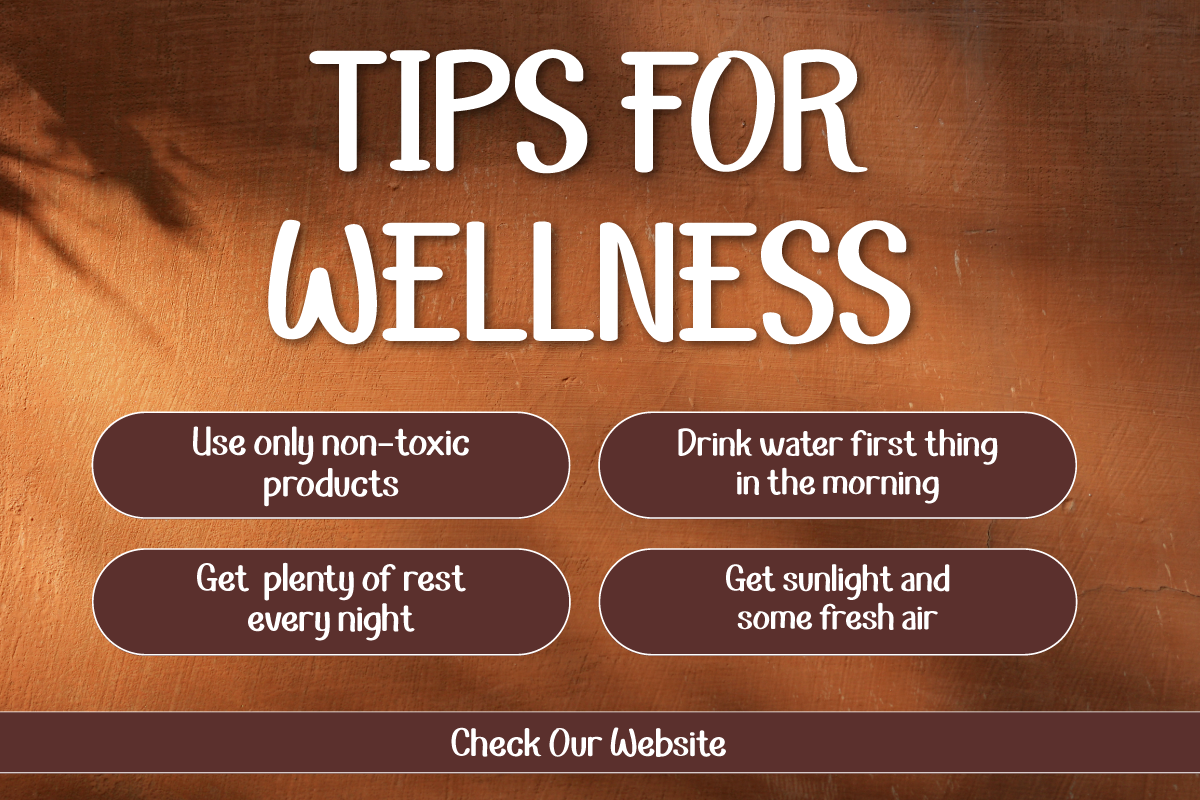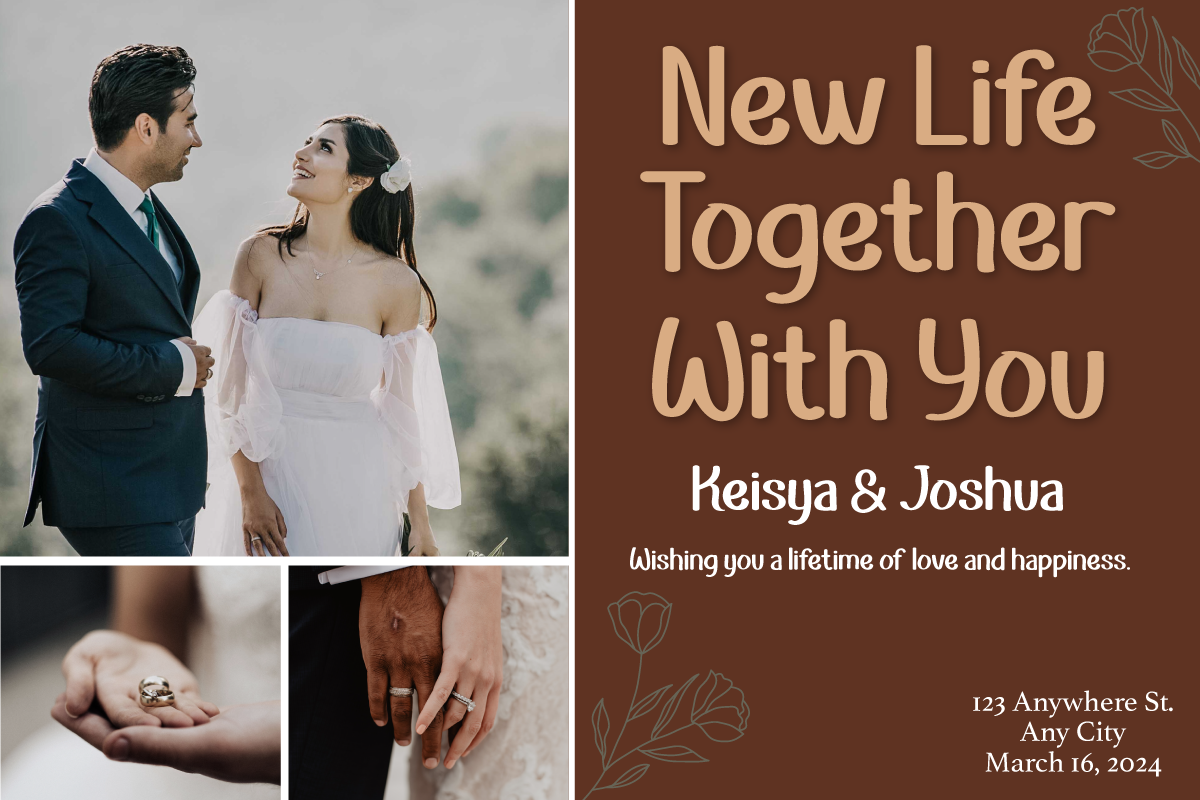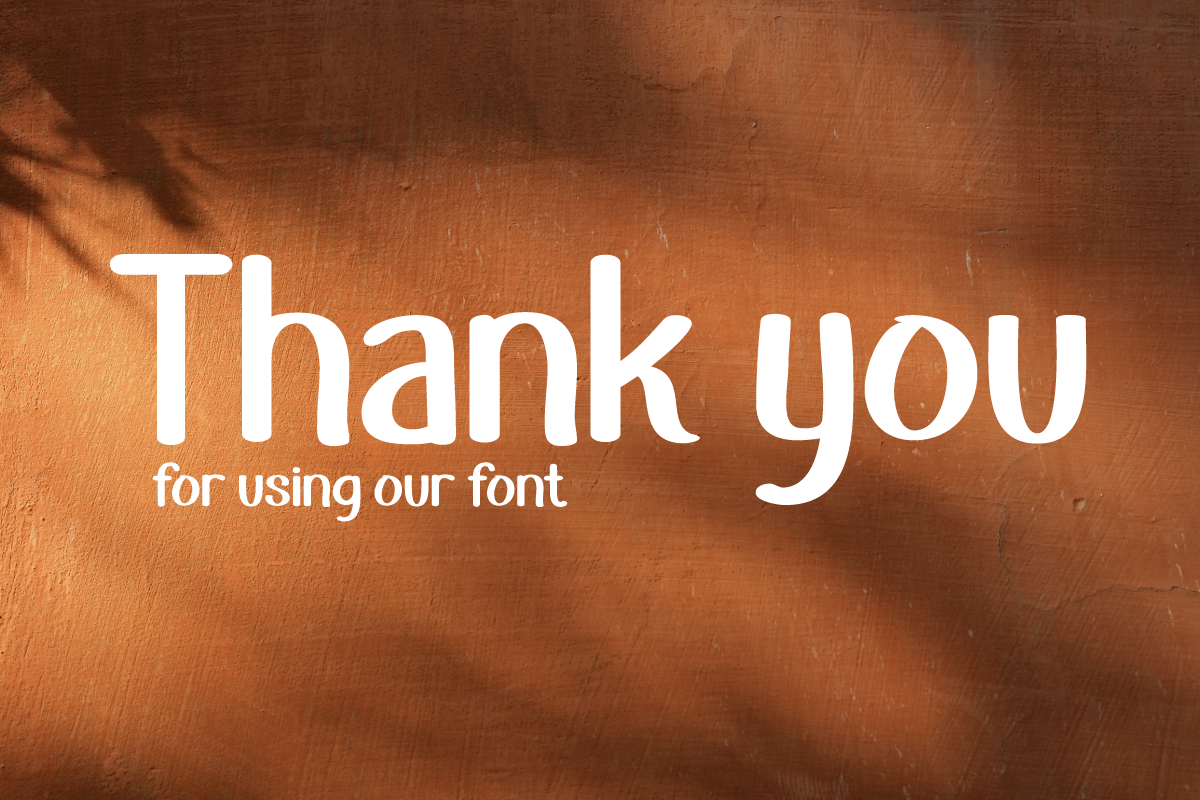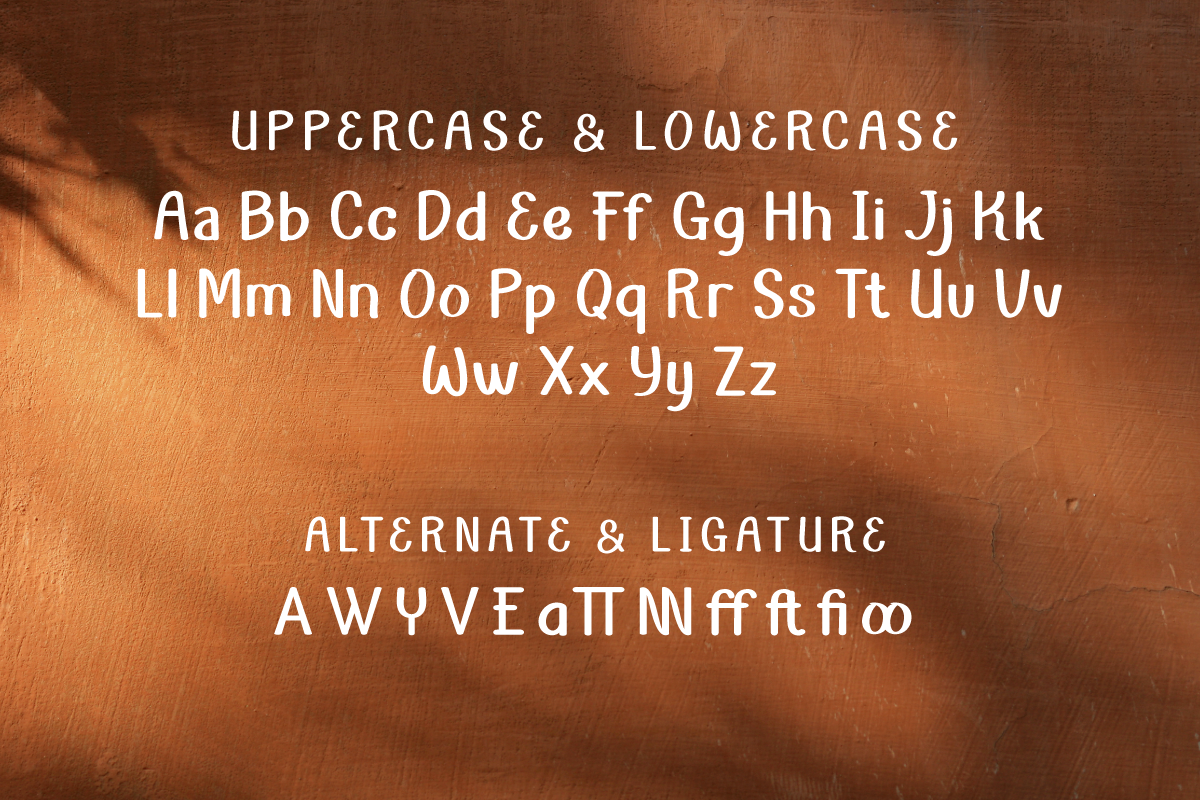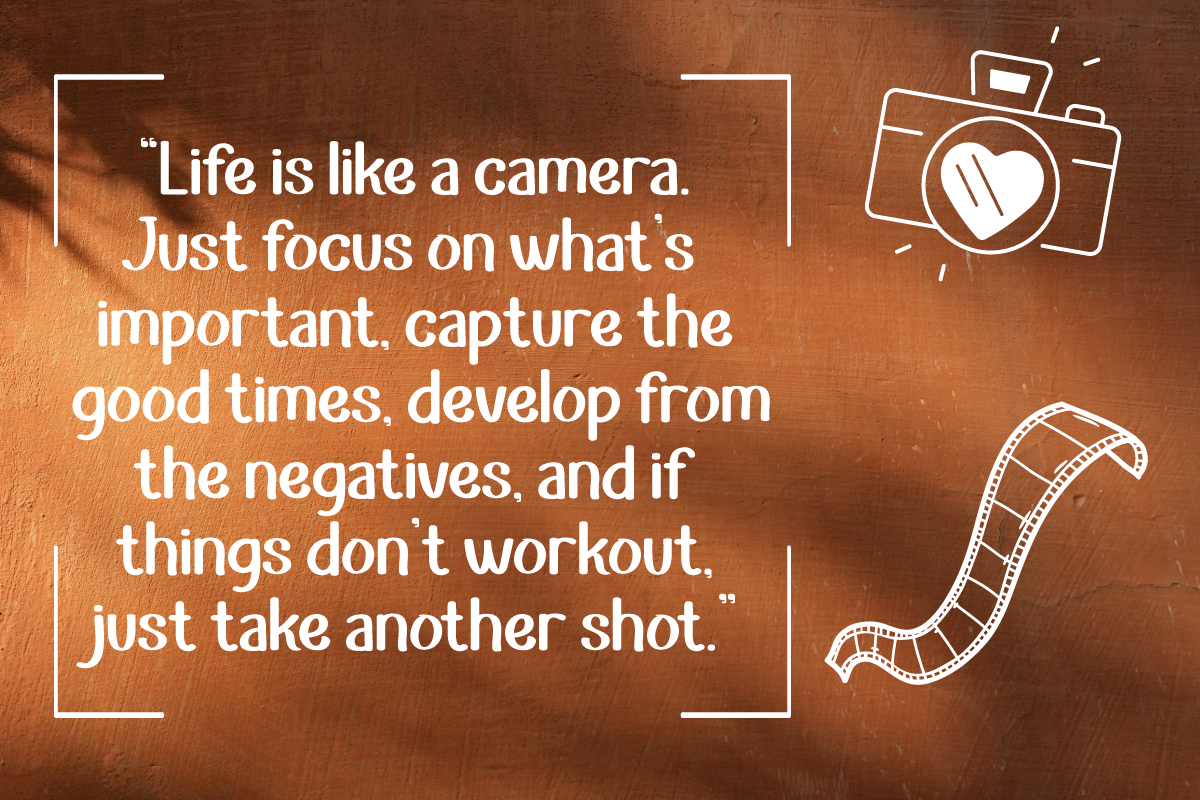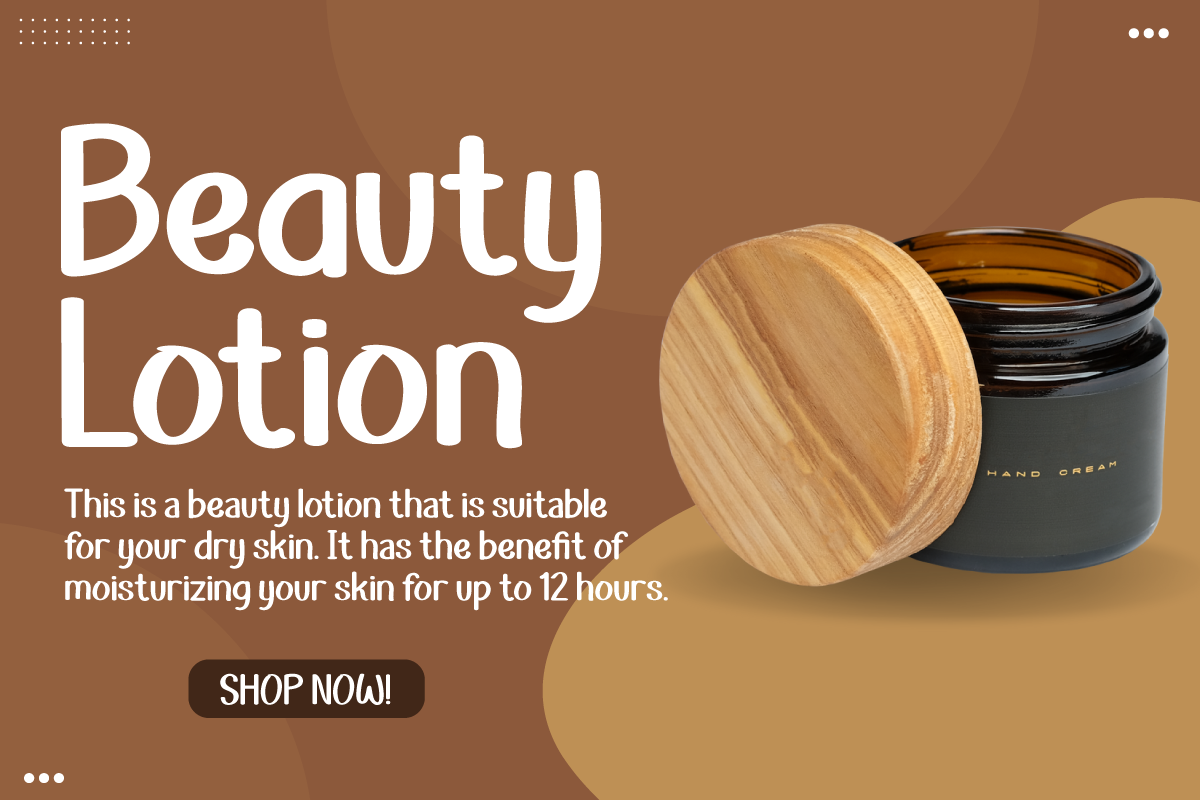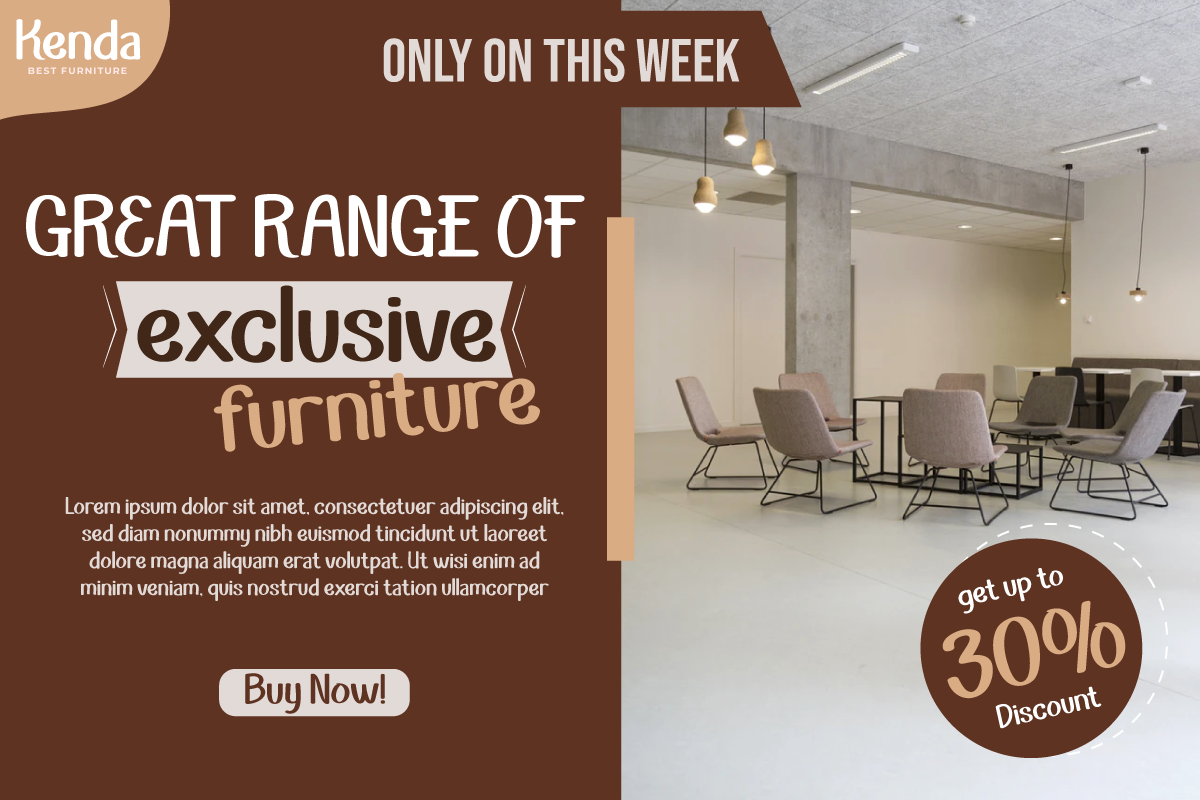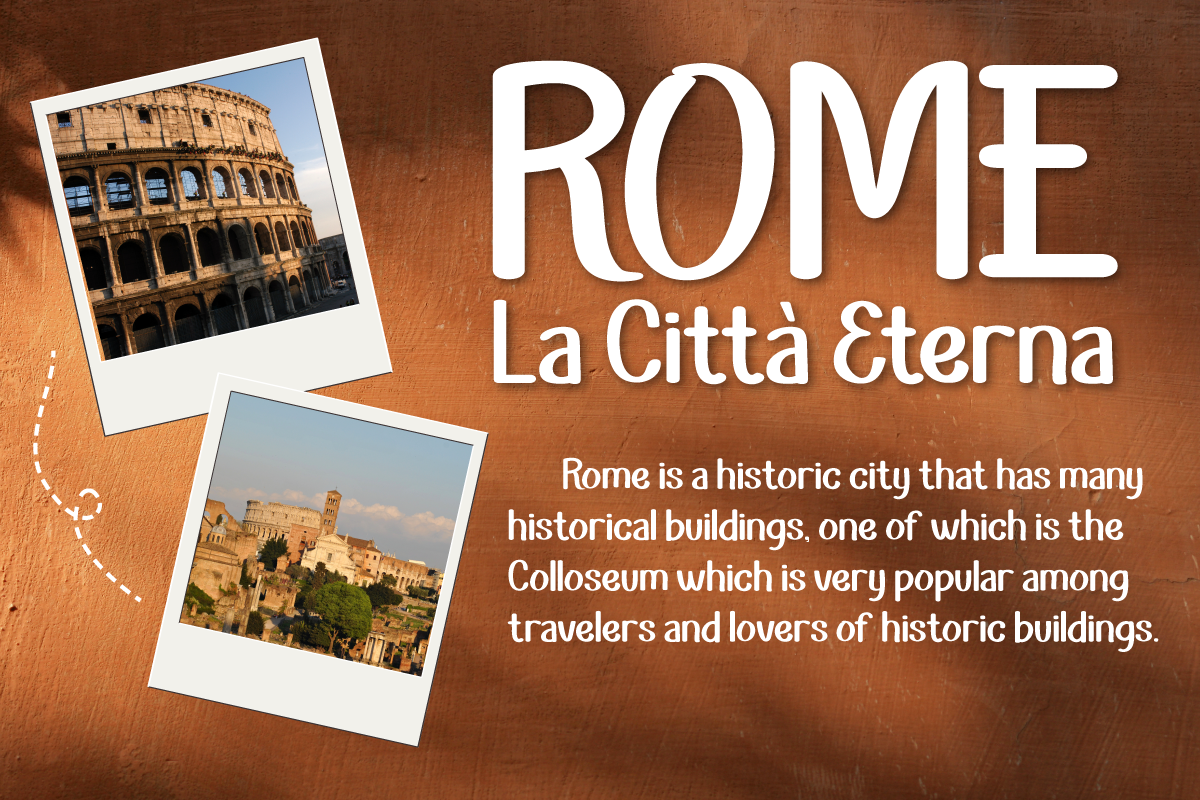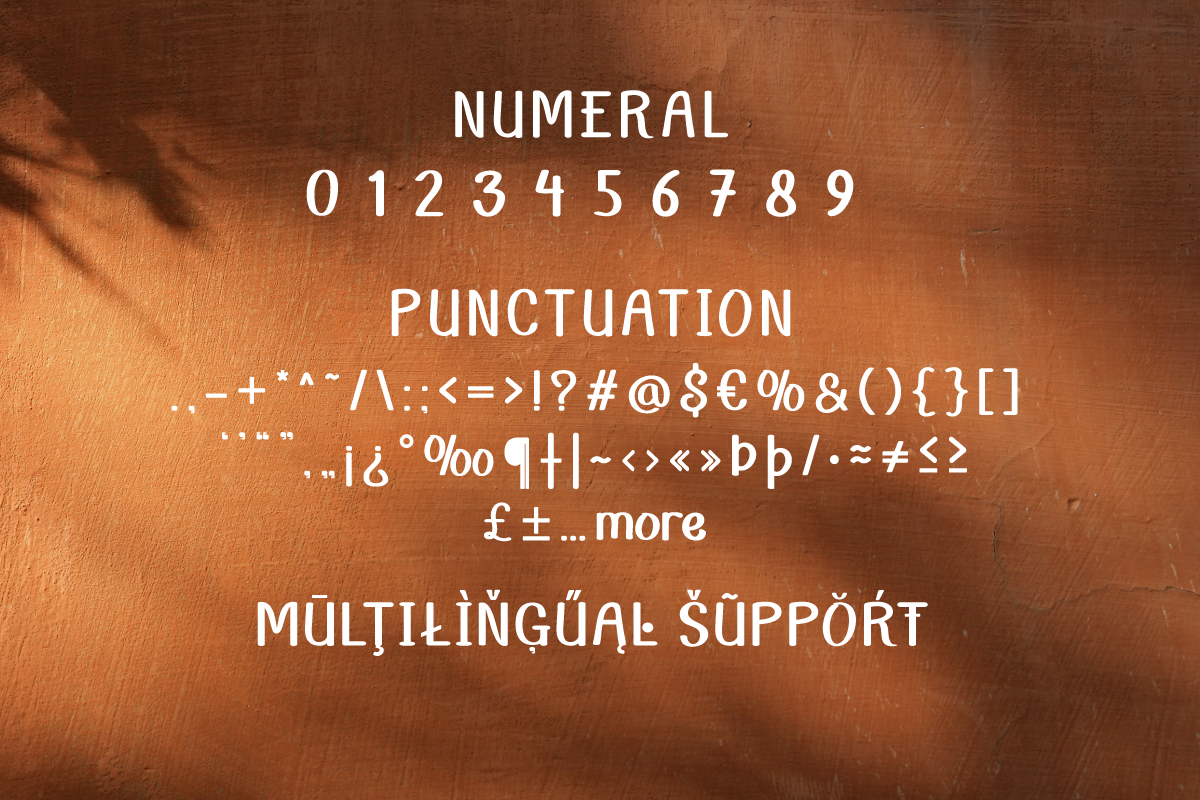
Kyren | Summer San Serif Display
Introducing "Kyren Font" - A Handwriting Masterpiece.
Kyren Font is a true masterpiece in the world of display fonts. Its stunning handwriting theme adds an authentic touch to your creative projects, making it the ideal choice for those seeking a genuine handwritten feel. Whether you're designing invitations, posters, or branding materials, Kyren Font effortlessly captures attention and brings a unique, personal touch to your designs.
Crafted with meticulous attention to detail, Kyren Font exudes the charm and warmth of handwritten script, creating an immediate connection with your audience.
Its versatility is unmatched, making it suitable for a wide range of applications, from wedding invitations to blog headers.
Kyren Font enhances readability and style with its elegant strokes and fluid lines, providing a natural and appealing look to your text. It also supports various languages, ensuring that it resonates with a global audience.
Elevate your creative projects with the timeless elegance of Kyren Font. Explore this exceptional typeface today and let your designs flourish with the beauty of authentic handwriting.
- Alternate, Ligature